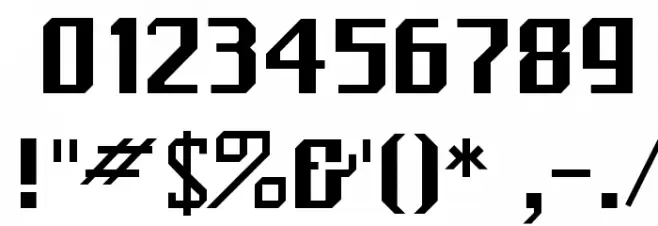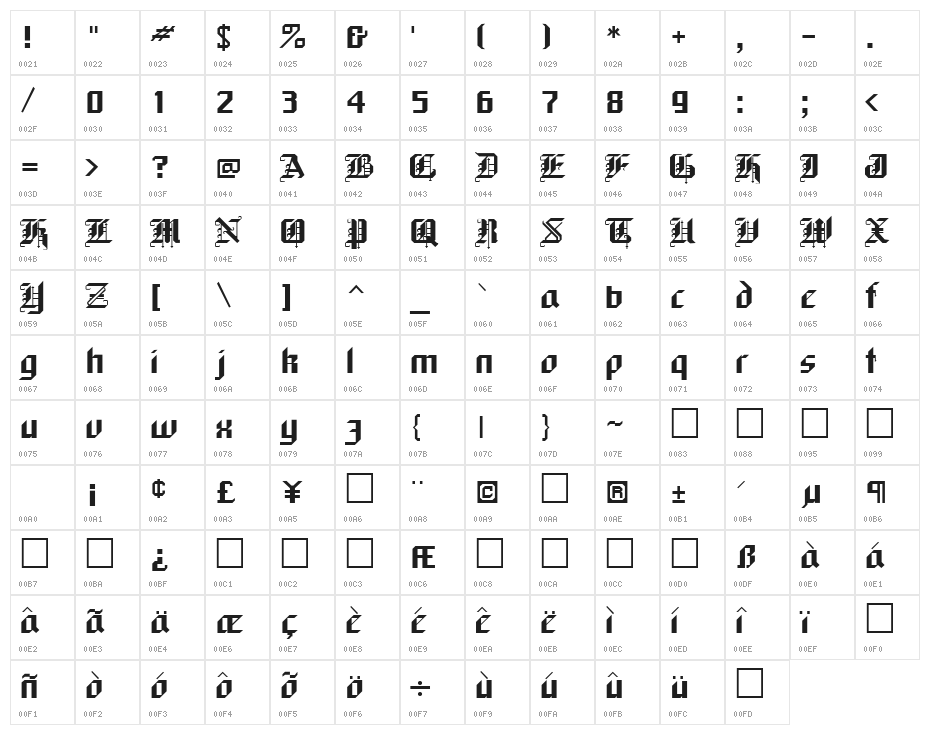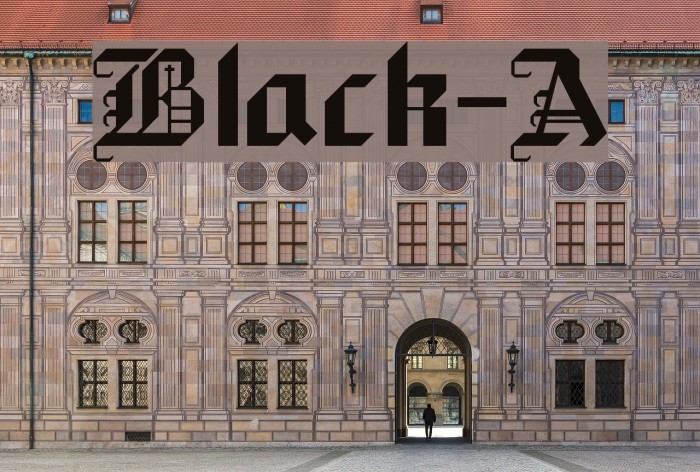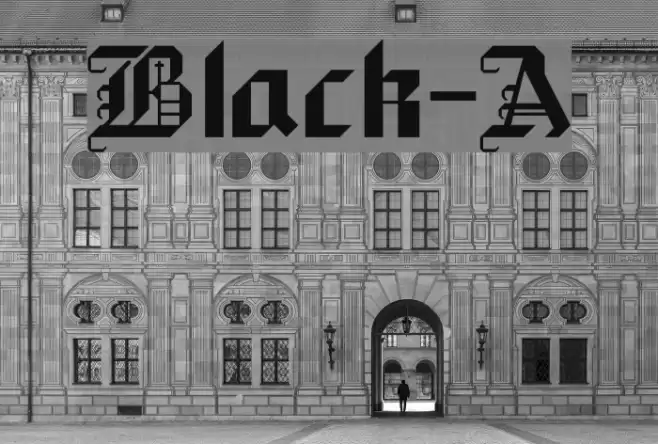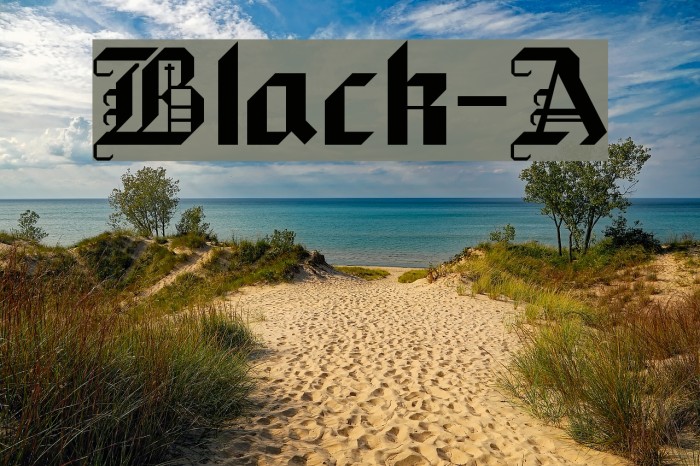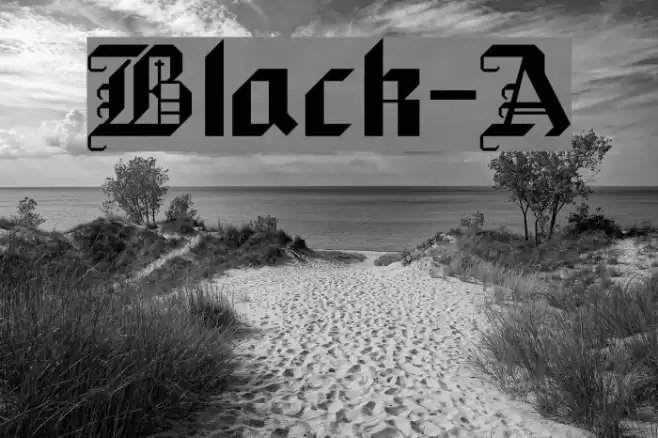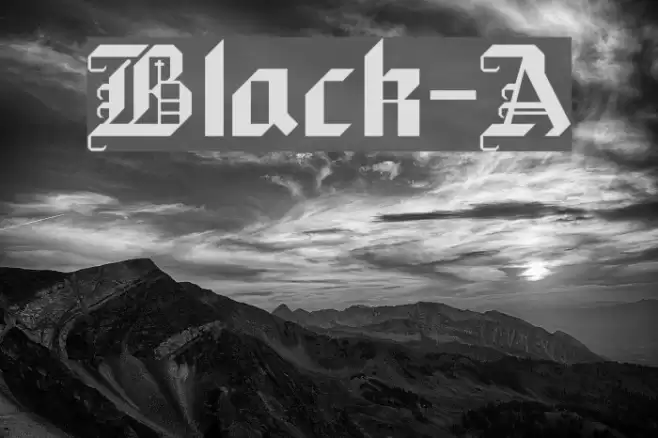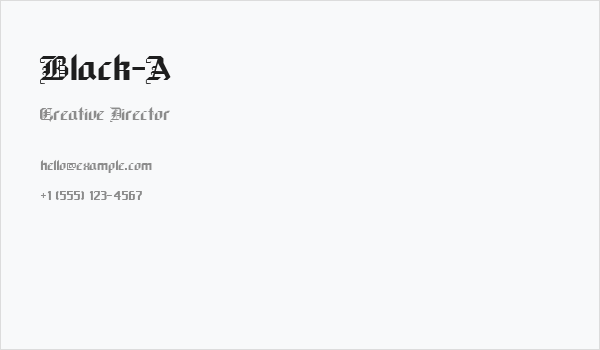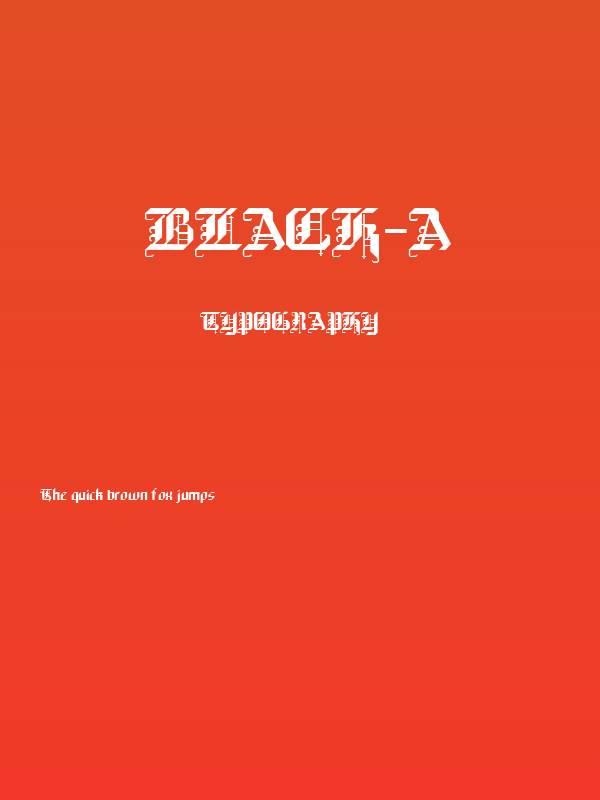
Black-A Font
Black-A Description
This font exhibits a striking and bold blackletter style, characterized by its intricate and ornate design. The uppercase letters feature elaborate flourishes and sharp angles, reminiscent of traditional Gothic script. The lowercase letters maintain a similar aesthetic, with a strong emphasis on angularity and decorative elements. The numerals and special characters are designed to match the overall theme, providing a cohesive look. This font's dramatic appearance makes it suitable for projects that require a historical or medieval touch, while its boldness ensures readability in larger sizes.
| Proposed Projects | Ideal for historical-themed designs, medieval event posters, book covers, and branding that requires a dramatic and classic touch. |